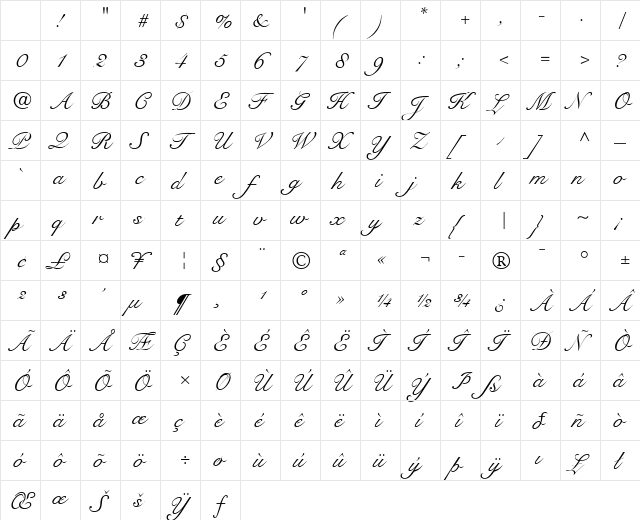
SnellRoundhand Script Italic
Complete SnellRoundhand Script Italic glyph index. Displaying only characters natively supported by SnellRoundhand Script Italic font.
Design Context for SnellRoundhand Script
SnellRoundhand Script flows with the natural rhythm of handwritten lettering, making it ideal for designs that call for warmth and personal expression.
Font Pairing: Combine SnellRoundhand Script with a simple geometric sans for maximum contrast - the tension between flowing curves and clean structure is a classic typographic pairing.
Pro Tip: Use SnellRoundhand Script for short runs of text - names, titles, or taglines. Extended body copy in script faces tires the eye quickly.